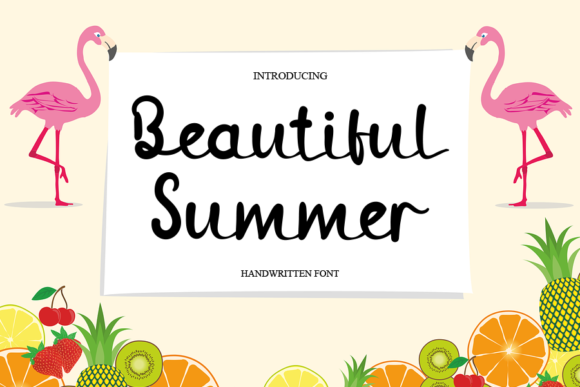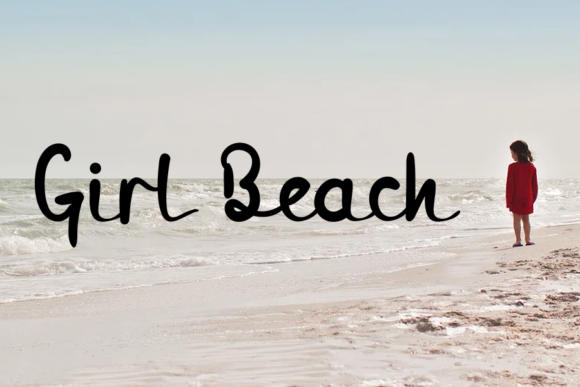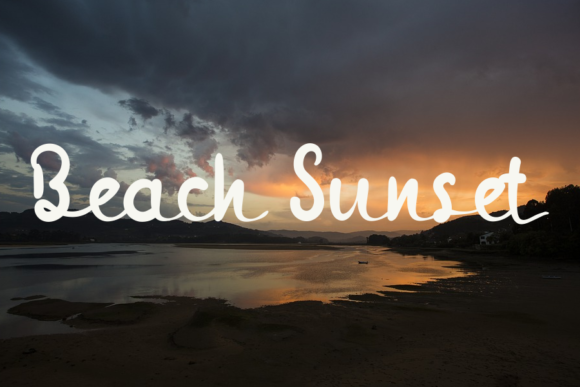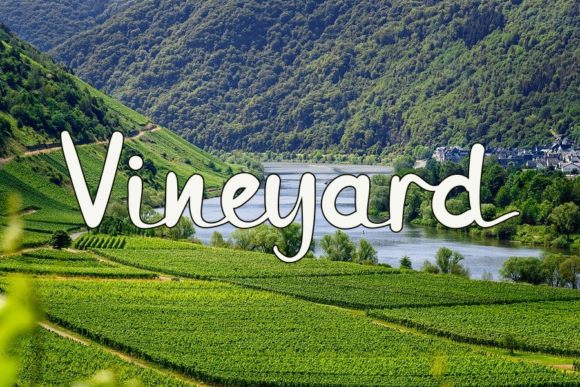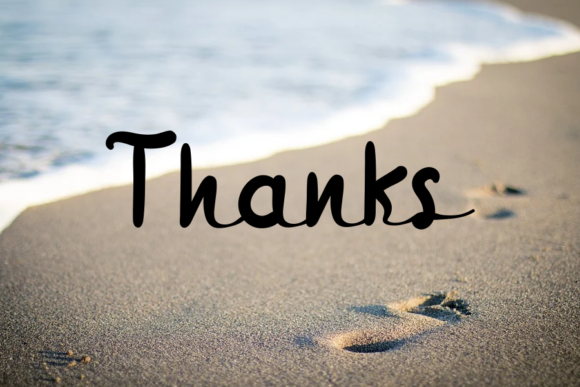
Beautiful Summer Font
About Beautiful Summer Font
Beautiful Summer is a modern handwritten font that is readable, flowing and stylish. It is defined by smooth curves and is perfect for fashion branding or editorial designs. Add it confidently to your projects, and you will love the results.